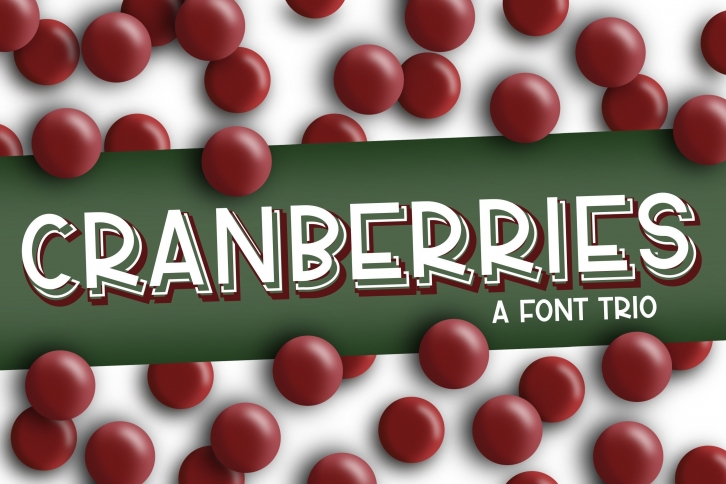
Looking for a font that’s both bold and squared off? Look no further than Cranberries Font! This stylish trio is perfect for your next project, whether it’s a modern website design or a flashy new brochure. With its clean lines and sharp edges, this font is sure to make a statement!